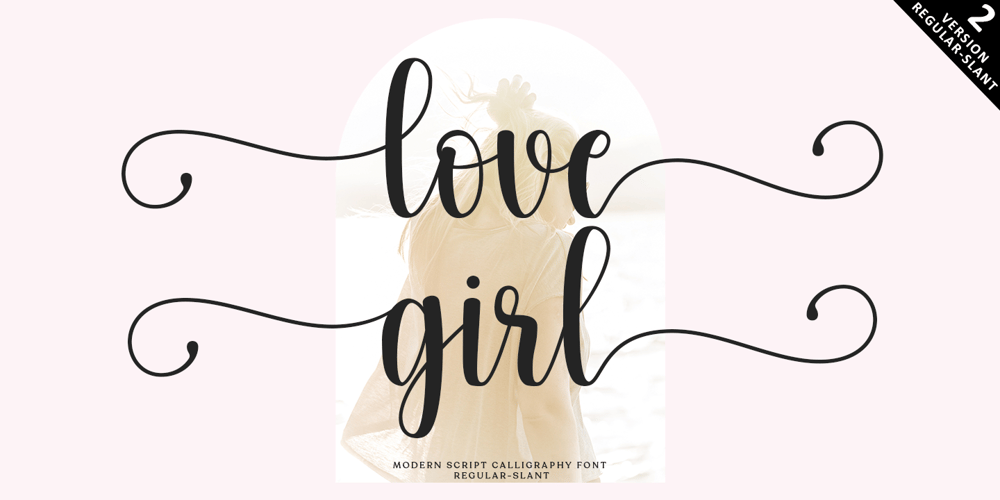
Love Girl Font Family was designed by Mur Zani and published by Zane Studio. Love Girl contains 2 styles and family package options. girl love Script is a sweet calligraphy writing while maintaining its elegance. This will increase your design stand out!girl love is the perfect typeface for all your types of projects, such as advertising, branding, graphic design, quotes, wedding designs, logos for online or offline businesses, photography, and more. Make your business more beautiful!girl in love has 2 VERSIONS of the regular script with slanted tails.Feature:- Uppercase and lowercase letters (including PUA coded extra glyphs)- Numbers and Punctuation- Most Multilingual Accent- Can be used in any software, such as Adobe Photoshop, Illustrator, Silhouette Studio, even Microsoft Word, PowerPoint and others.HOW TO ACCESS SWASH:PC: Using the character map. Easier to use Character Map UWP (Free Download from Microsoft store)Feel free to chat with us if you have any questions. Thank you 🙂